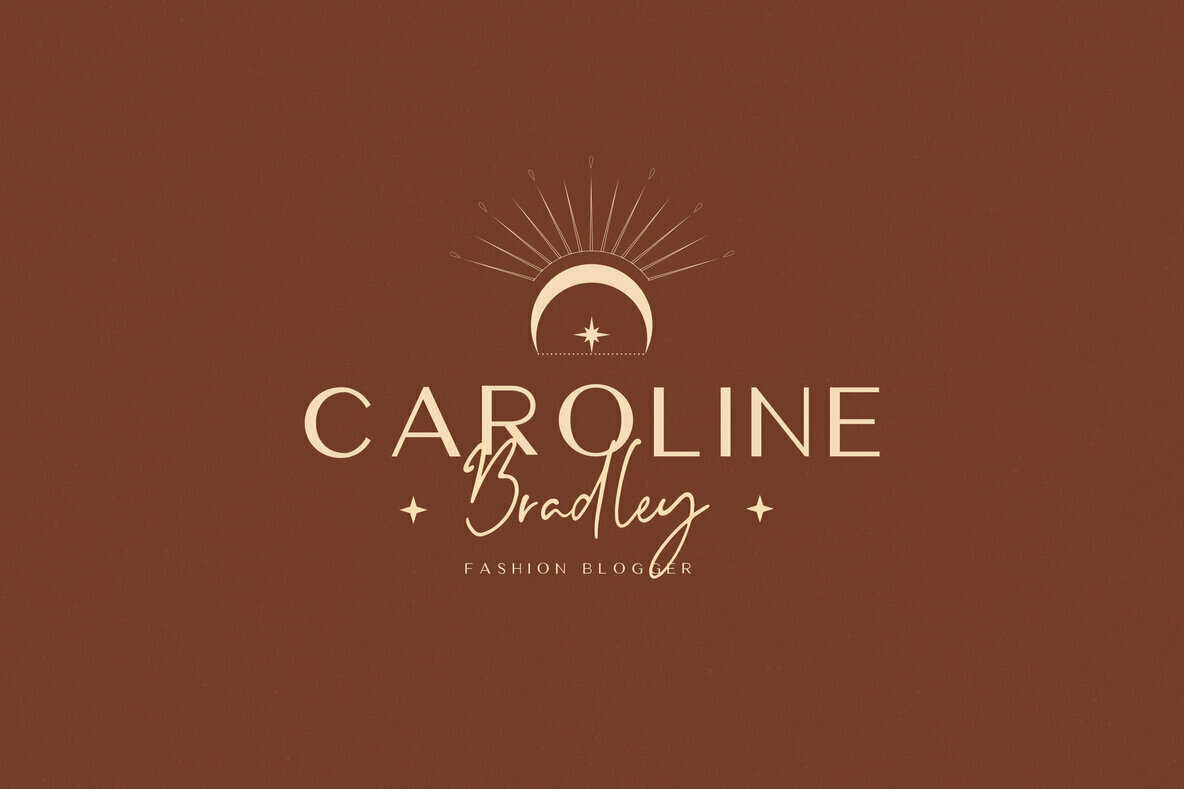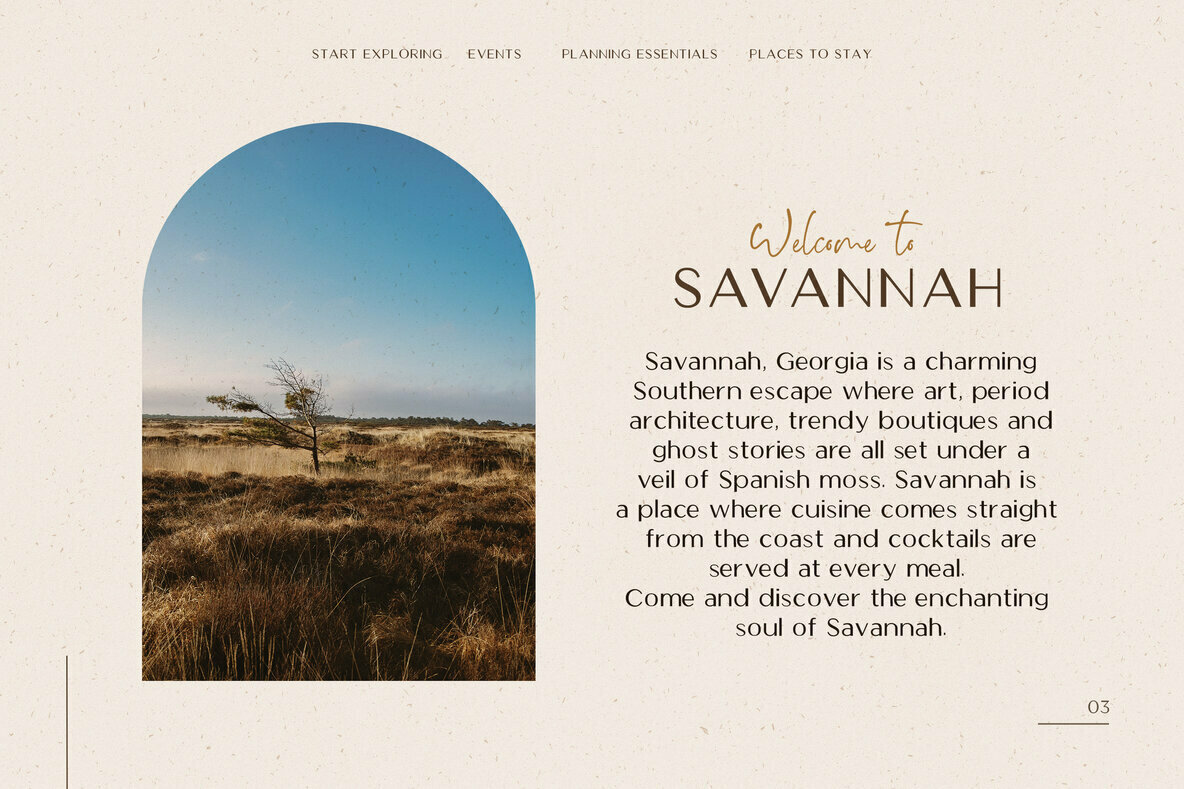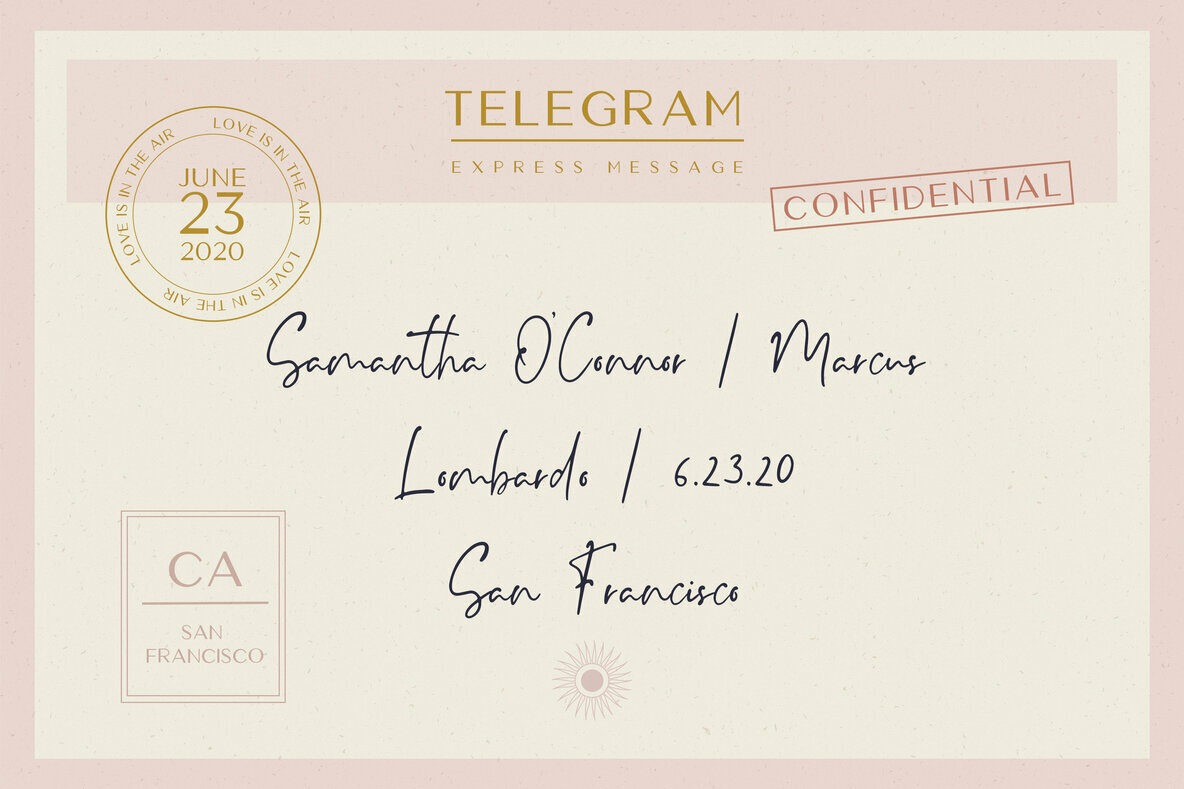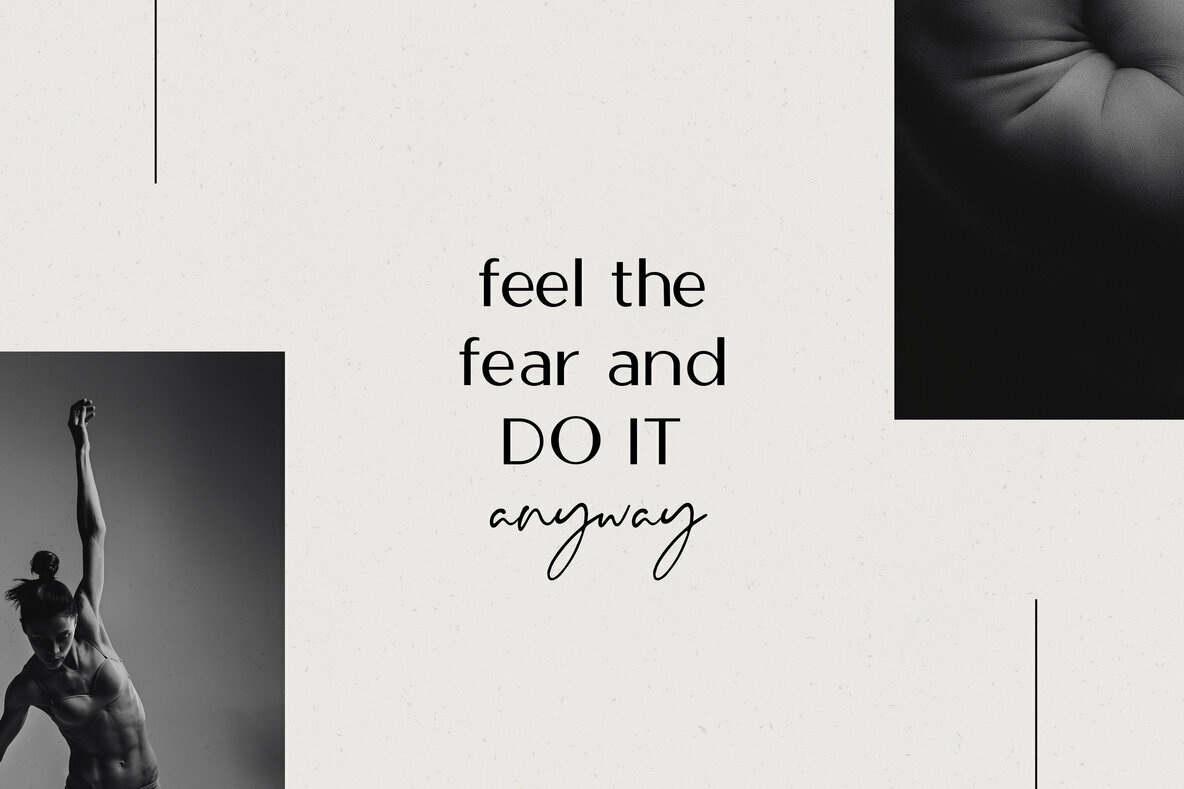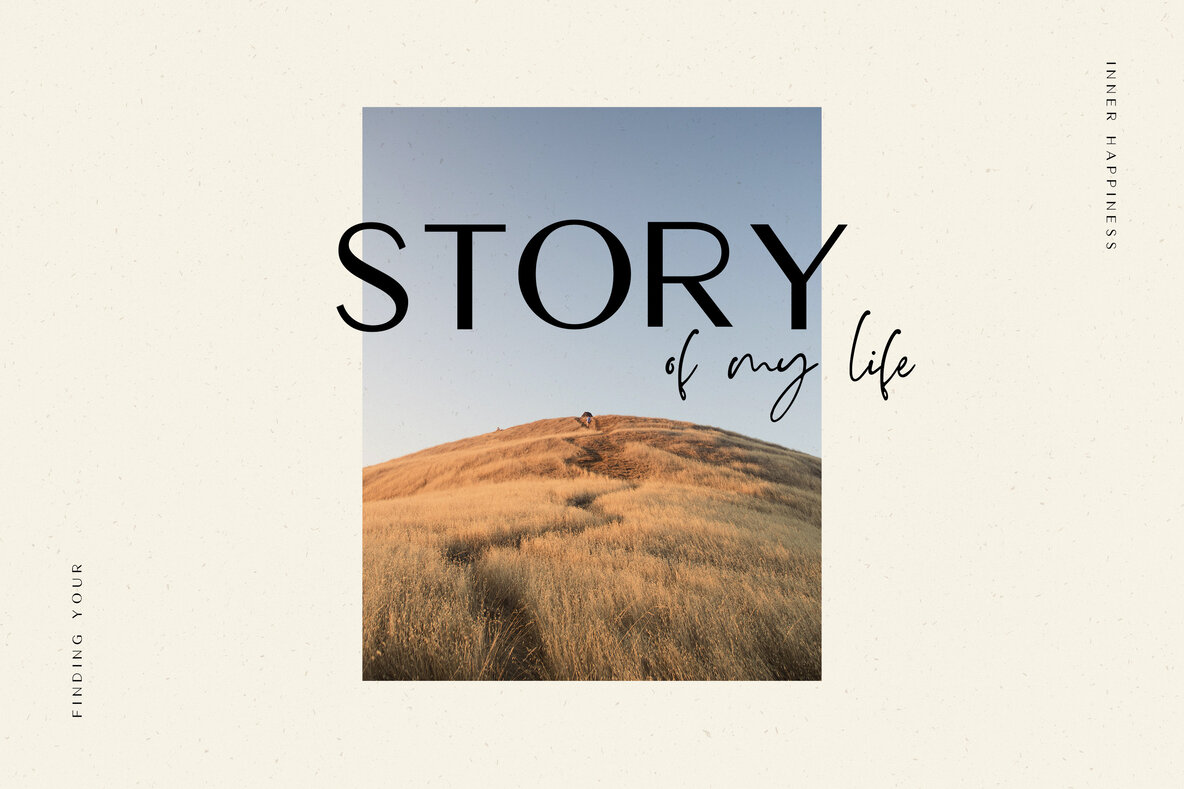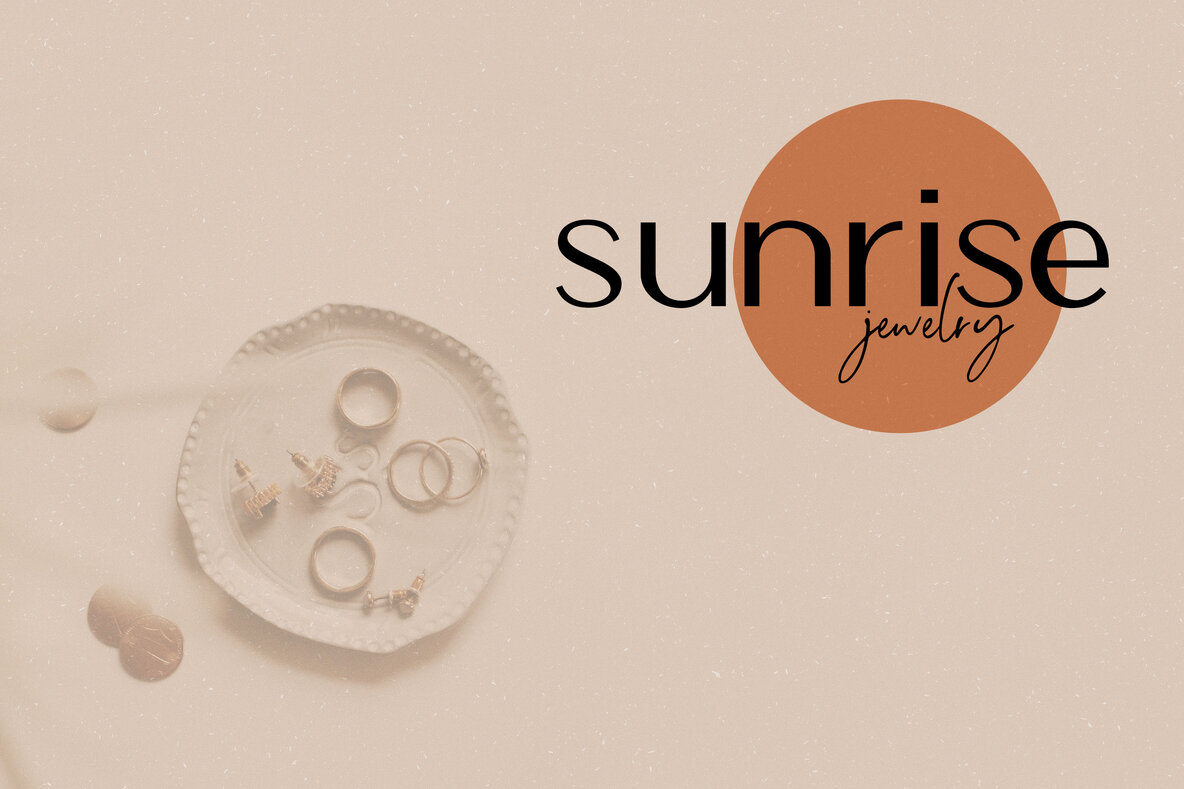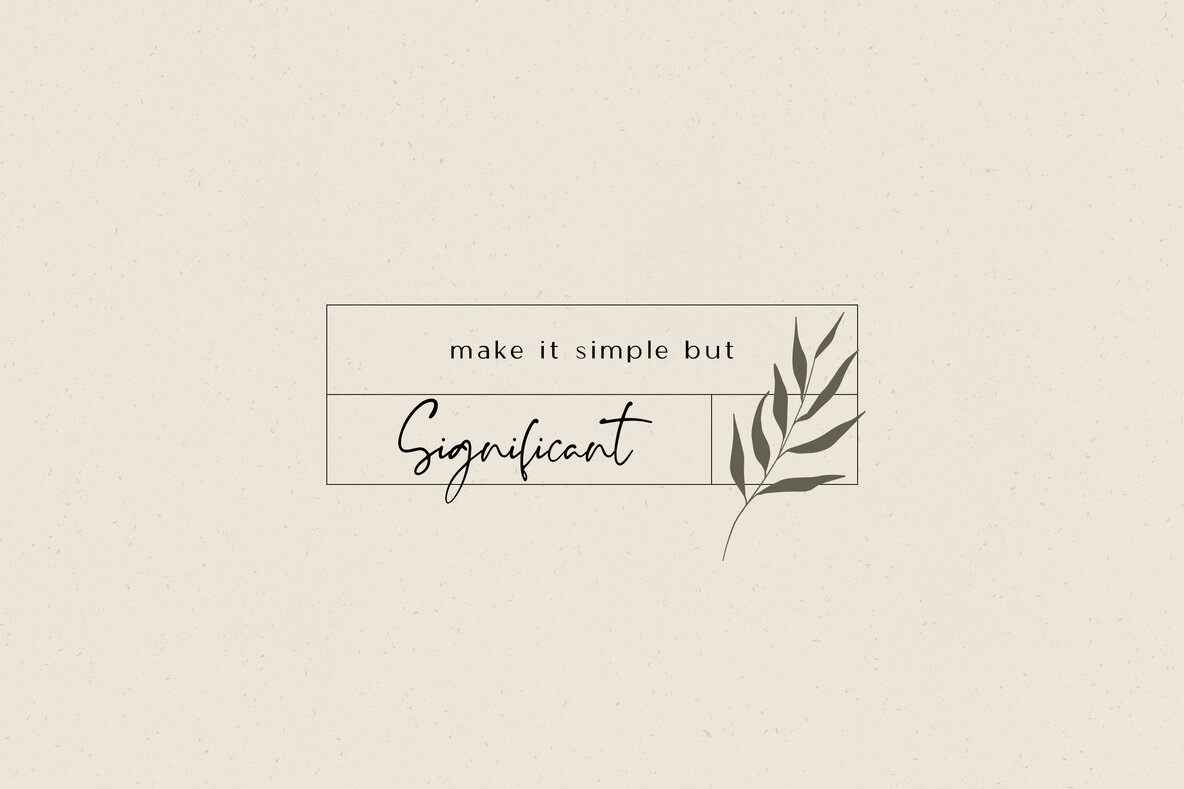
Bohemy Font Duo
Bohemy Font Duo offers a harmonious blend of styles, making it an ideal choice for diverse projects such as logos, branding, wedding invitations, and website design, among others.Bohemy Font Duo: Aesthetic Pair for Versatile Designs